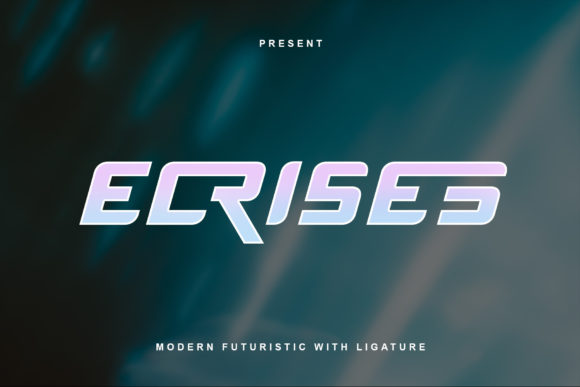
Behold, the Ecrisis Font, a creation of handpik that will transport you to the vast expanse of the cosmos. This display font exudes an aura of futurism, daring you to explore the uncharted territories of creativity. With its bold strokes and sleek lines, Ecrisis Font is the ultimate choice for those seeking to make a statement.
Unleash the power of Ecrisis Font and watch your designs soar to new heights. Its versatility is boundless, capable of transforming ordinary text into captivating headlines, logos that demand attention, and website designs that leave a lasting impression. Whether you're a seasoned designer or just starting out, Ecrisis Font will be your trusted companion on the path to creating masterpieces.
Immerse yourself in the world of Ecrisis Font and let your imagination run wild. Picture your words taking flight, adorned with the elegance and boldness of this font. Envision your creations capturing hearts and minds, leaving an indelible mark on the hearts of those who behold them. Ecrisis Font is more than just a font; it's a portal to a universe of endless possibilities.
With Ecrisis Font, you'll unlock a treasure trove of creative opportunities. Design business cards that radiate professionalism and leave a lasting impression. Craft web designs that transport users to another realm, captivating them with their beauty and functionality. Unleash your inner artist and create posters and flyers that ignite imaginations and inspire action.
Ecrisis Font is not just a font; it's an experience. It's a journey through the cosmos, a voyage to the far reaches of your creativity. Embrace the power of Ecrisis Font and let your designs take center stage, commanding attention and leaving an everlasting legacy.